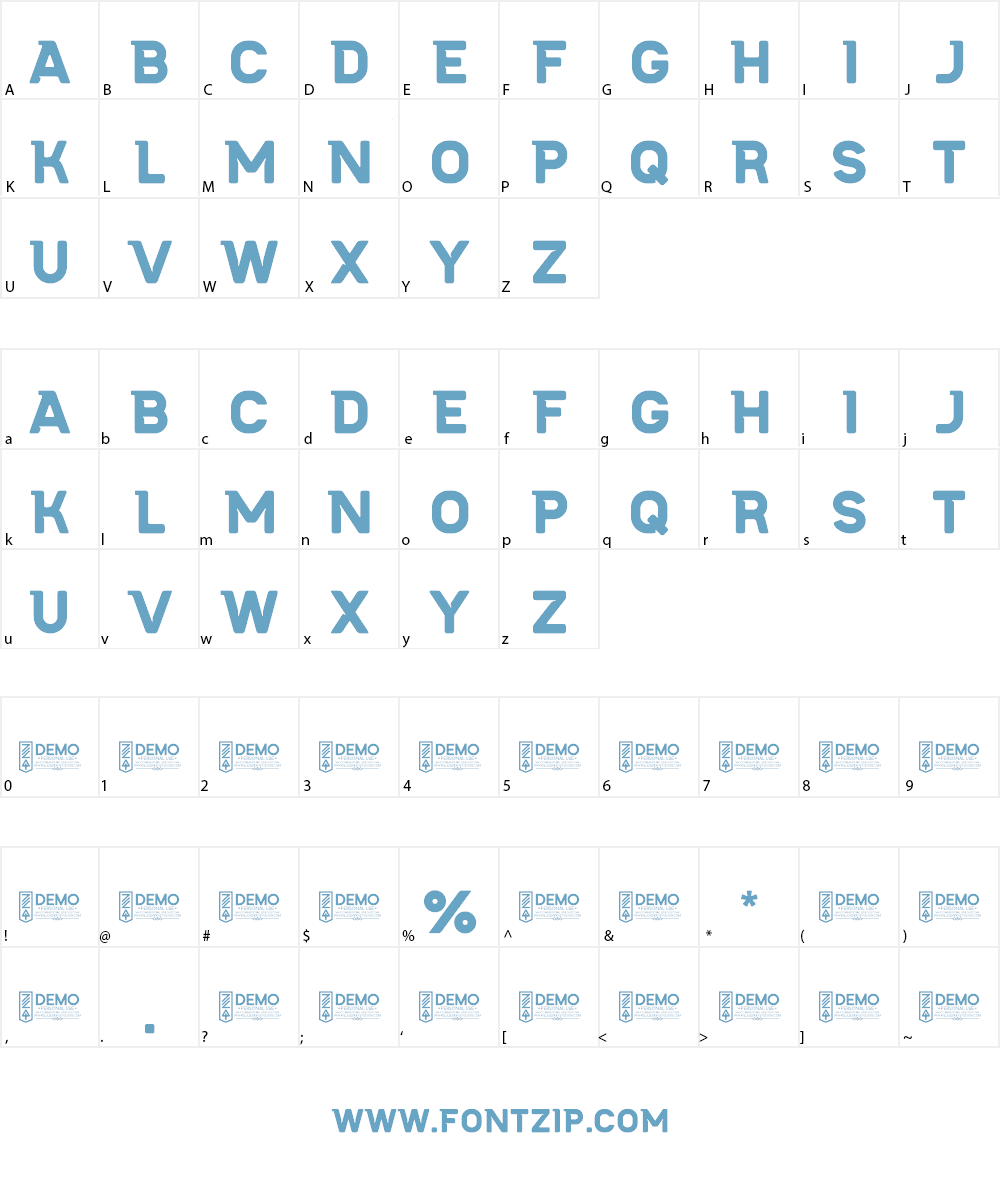
English:
Zilap Orange is a modern typeface with rounded edges, ideal for logos, titles, posters, clothing, product packaging, brands, magazines, etc. This font includes capital letters, numbers, symbols and is multilingual. It is a fresh and creative source, which adapts to the needs of your graphics
French:
Zilap Orange est une police de caractères moderne aux bords arrondis, idéale pour les logos, les titres, les affiches, les vêtements, les emballages de produits, les marques, les magazines, etc. Cette police comprend des lettres majuscules, des chiffres, des symboles et est multilingue. C'est une source fraîche et créative, qui s'adapte aux grands besoins de grafica.
Zilap Orange is a modern typeface with rounded edges, ideal for logos, titles, posters, clothing, product packaging, brands, magazines, etc. This font includes capital letters, numbers, symbols and is multilingual. It is a fresh and creative source, which adapts to the needs of your graphics
French:
Zilap Orange est une police de caractères moderne aux bords arrondis, idéale pour les logos, les titres, les affiches, les vêtements, les emballages de produits, les marques, les magazines, etc. Cette police comprend des lettres majuscules, des chiffres, des symboles et est multilingue. C'est une source fraîche et créative, qui s'adapte aux grands besoins de grafica.